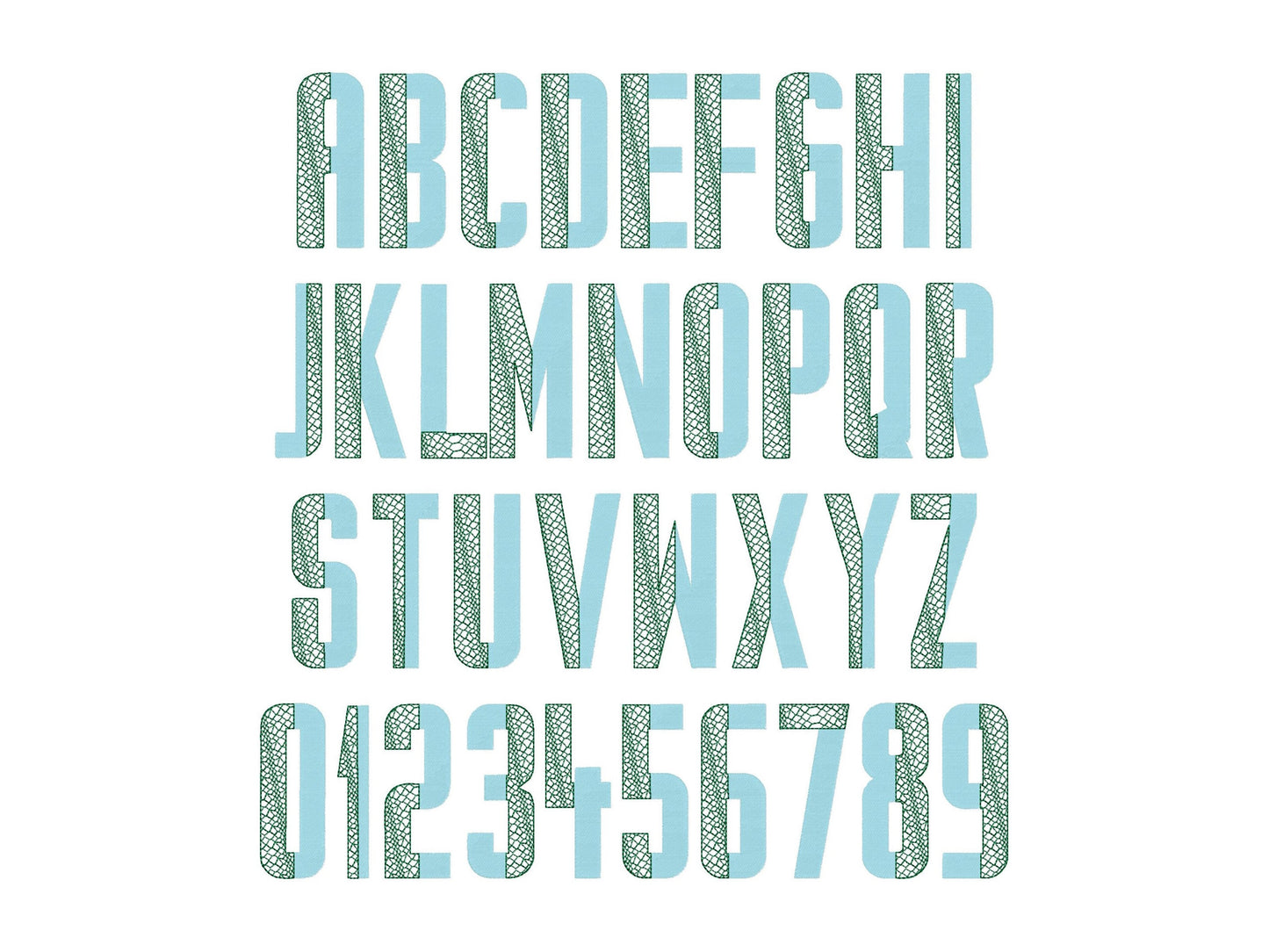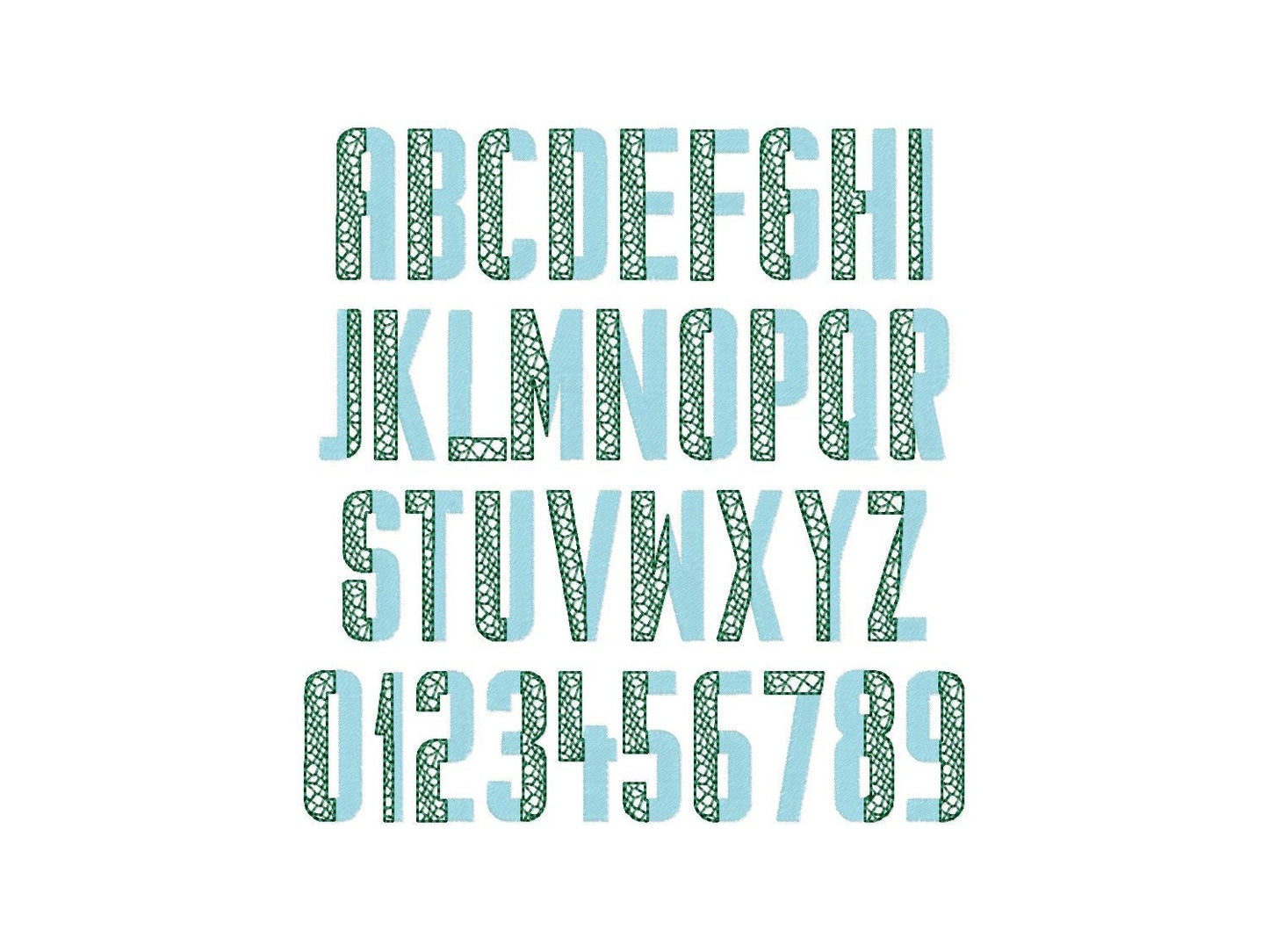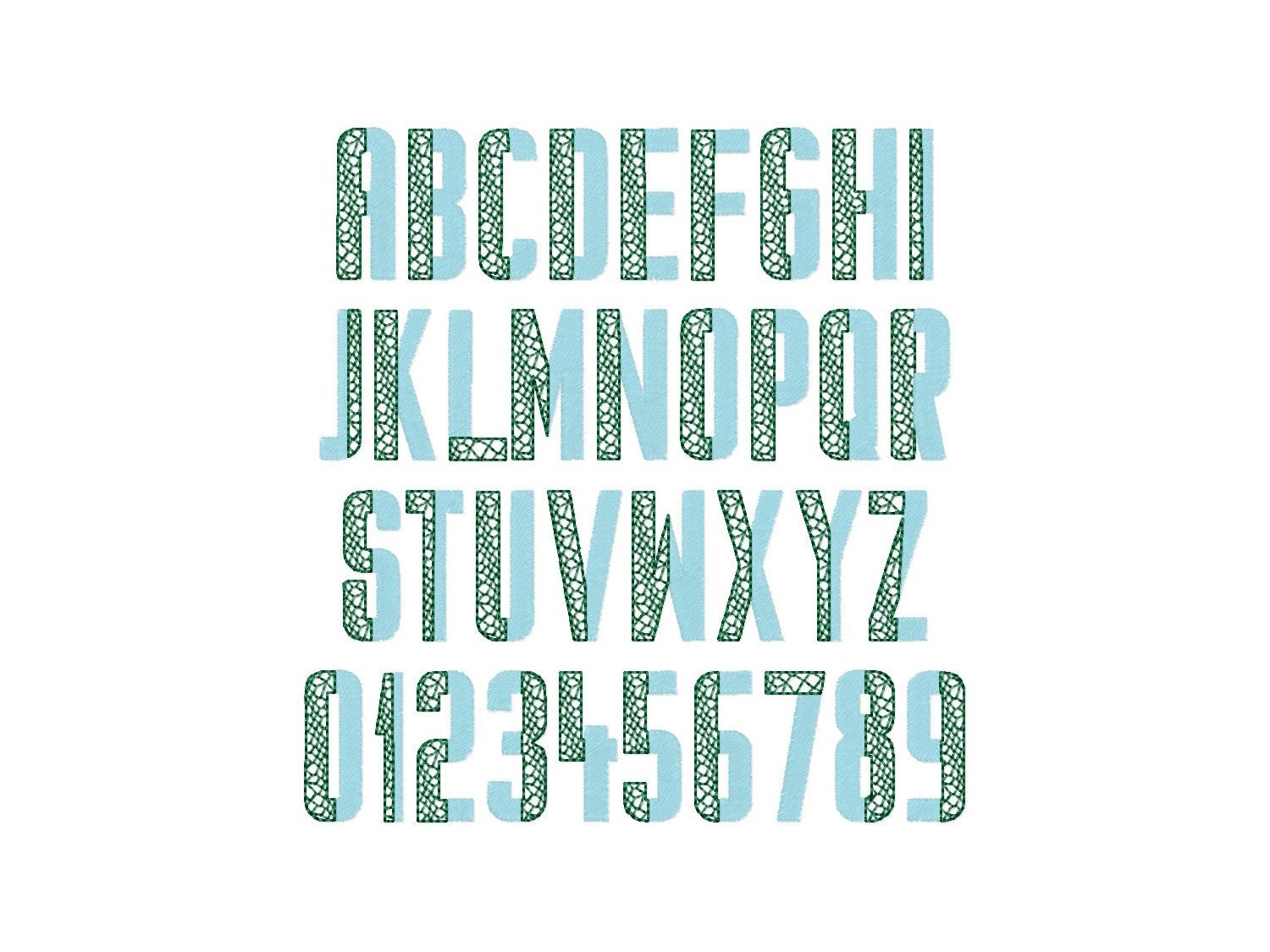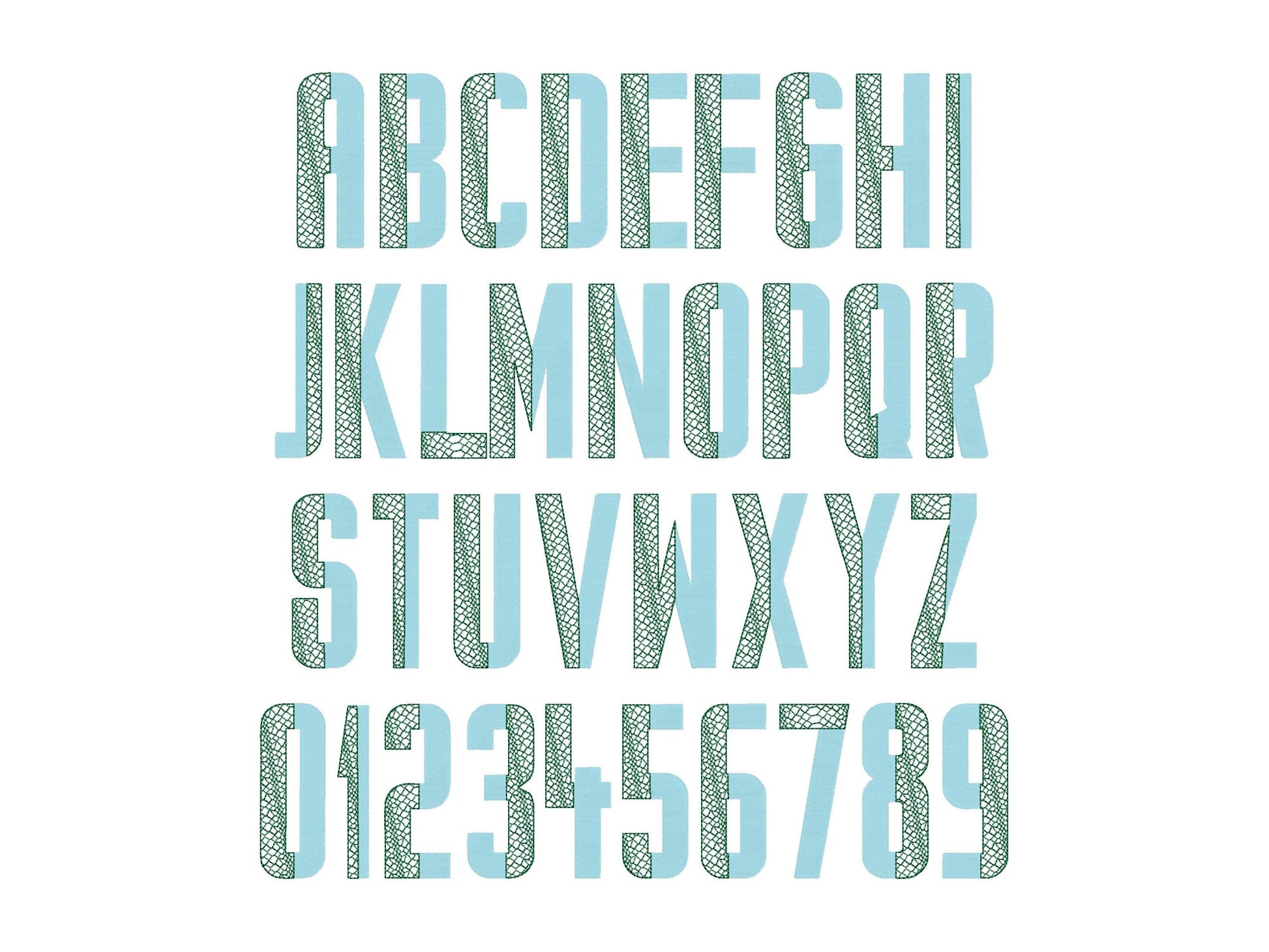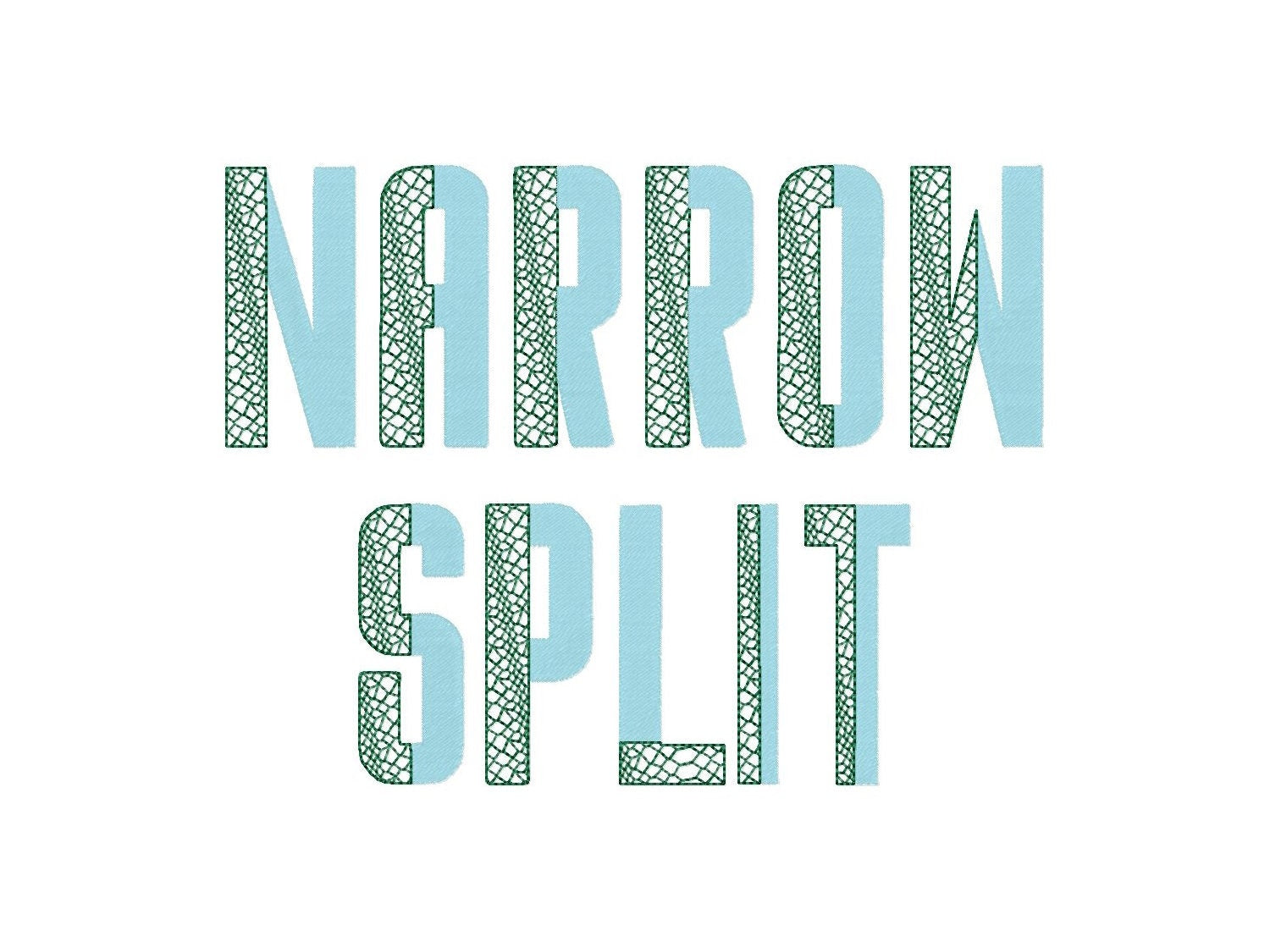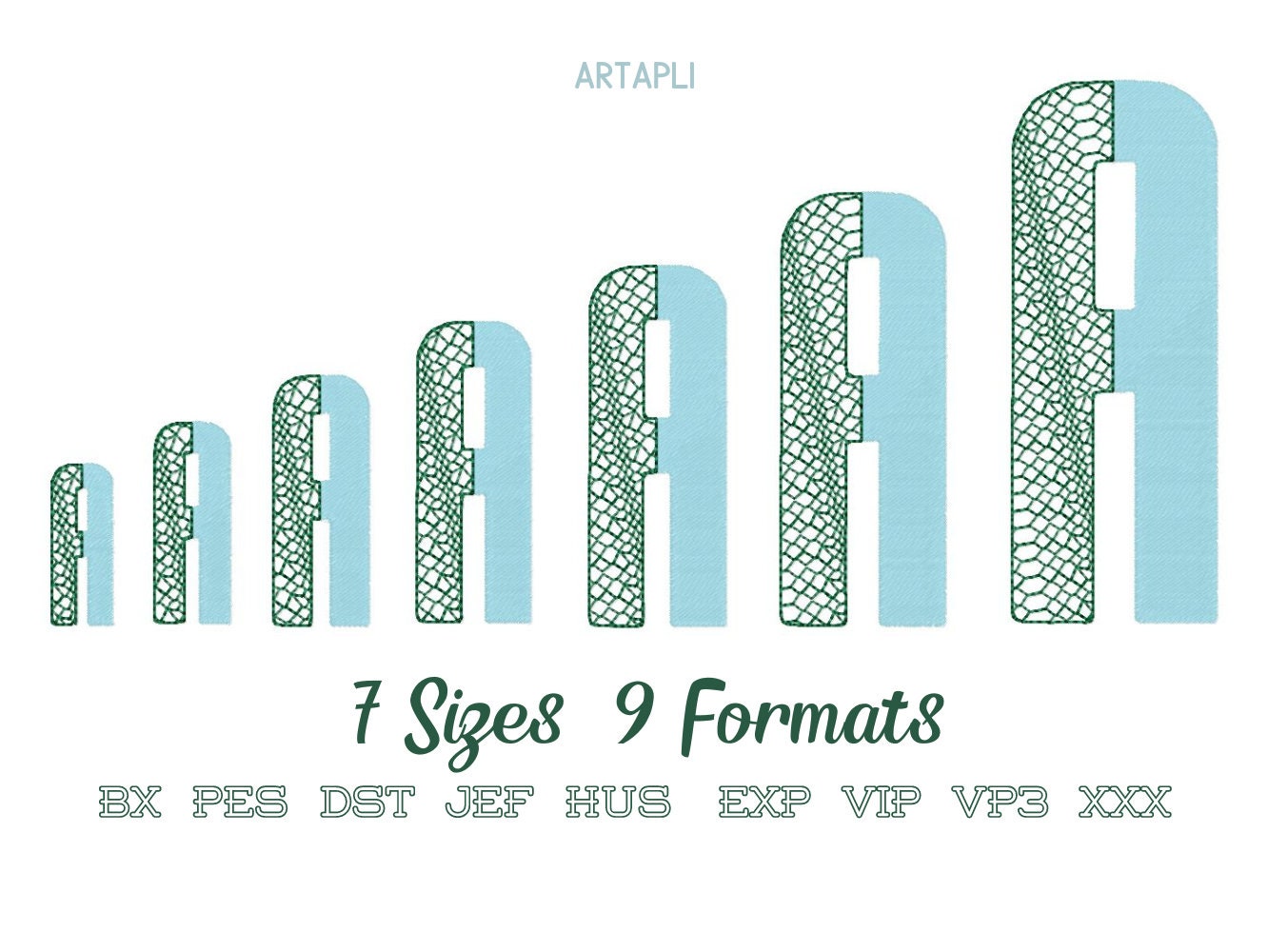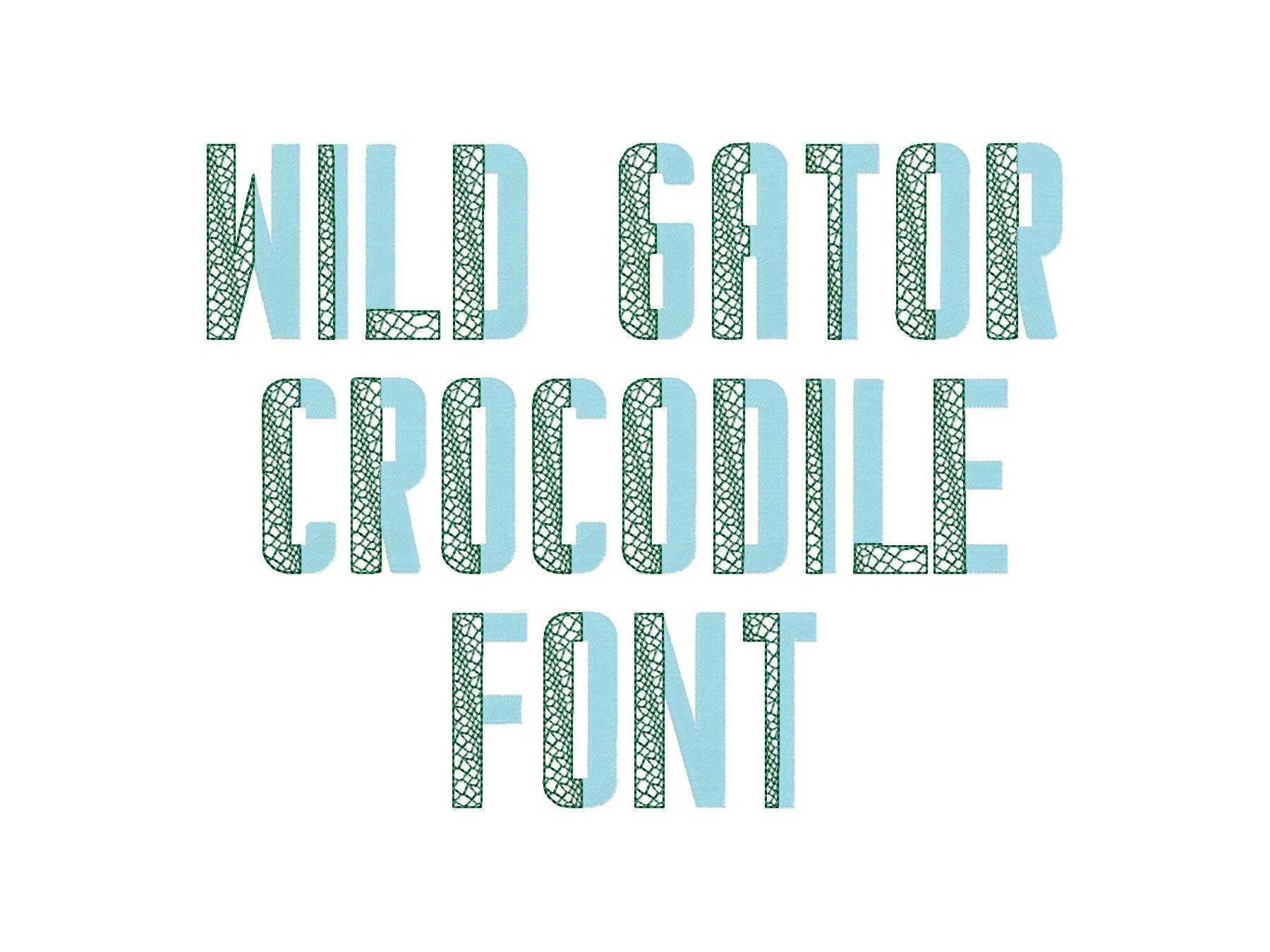
Duo Split Crocodile Gator Font
Uppercase letters A to Z and numbers 0 to 9 in seven sizes: 1.4, 1.7, 2.1, 2.6, 3.1, 3.8 and 4.7 inches. The print is part of the stitching and lets the fabric show through.
- Crocodile print duotone split font
- Uppercase A-Z, numbers 0-9
- 7 sizes, 1.4 to 4.7 in